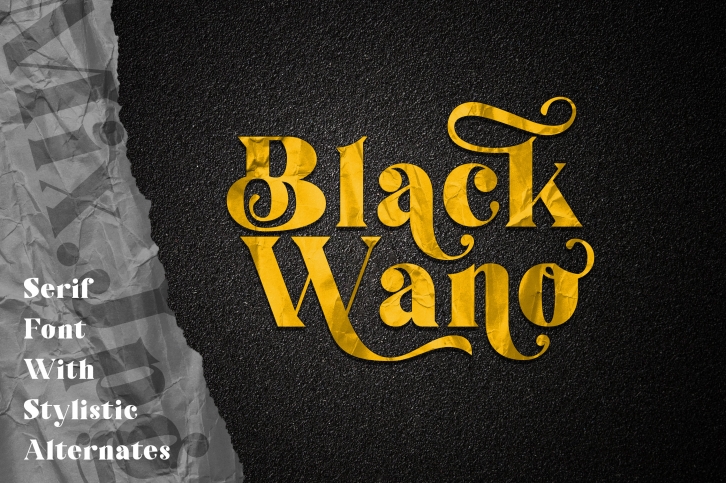
Black Wano is a retro soft serif typeface. It can handle most typographic applications from branding to body copy with its range of weights and inherent legibility. Whatever you type will have a friendly message, but it really comes into its own when you start applying some of the additional ligatures and alternates that are built into this type family. You’ll soon be creating distinctive typographic compositions that are pleasing to the eye.